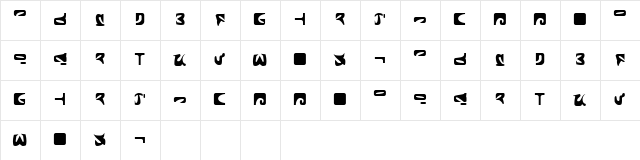
Romulus Plain Free Font
Romulus Plain
Romulus Family
Romulus Plain
Complete Romulus Plain glyph index. Displaying only characters natively supported by Romulus Plain font.
Design Context for Romulus
Romulus is a composed and adaptable typeface that performs quietly and consistently across a wide range of design contexts.